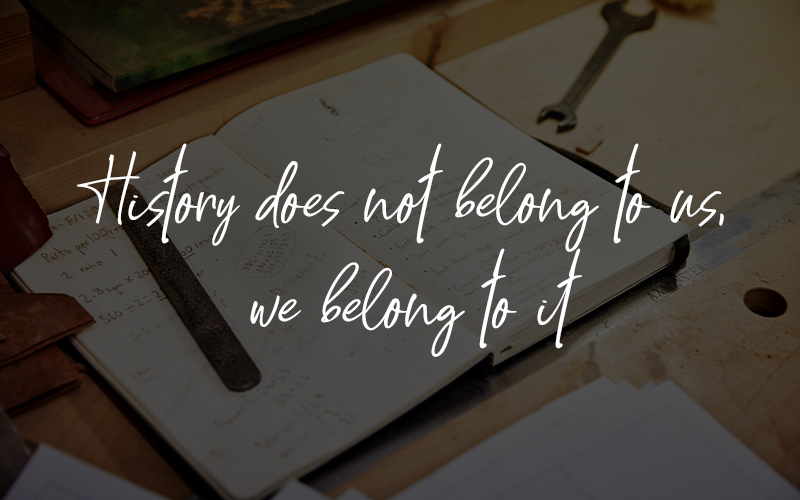
Handwritten Script Font Freebie
Pixelo presents a beautiful, unique font that will elevate your design projects to the next level – “The Handwritten Script Font Freebie” –  This font is crafted with care and attention to detail, resulting in an elegant, easy-to-read script font.
Whether designing a logo, creating social media graphics, or putting together a wedding invitation, our Handwritten Script Font Freebie will add a touch of sophistication to your work.
What makes our Handwritten Script Font Freebie so unique is its authenticity. Each character was hand-drawn and carefully digitized to preserve the natural flow and imperfections of handwriting. It means your designs will have a personal touch that is impossible to replicate with a generic font.